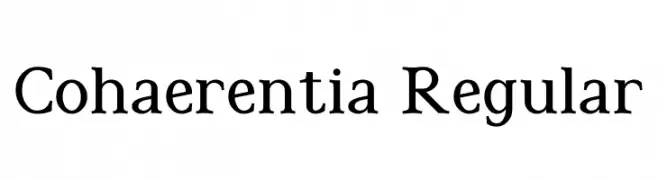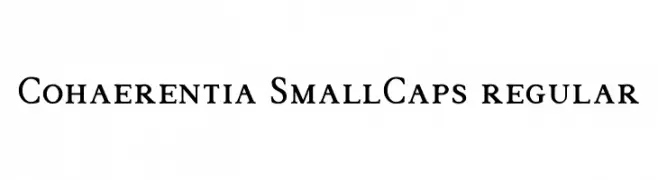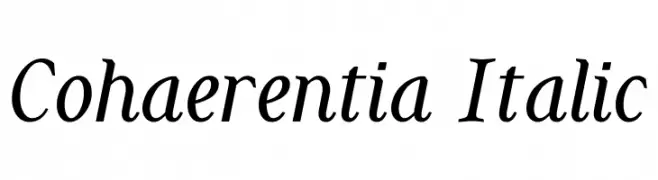
A classic serif font with elegant curves and balanced readability.
A classic serif font with elegant curves and balanced proportions.
An elegant italic font with flowing letterforms and moderate contrast.